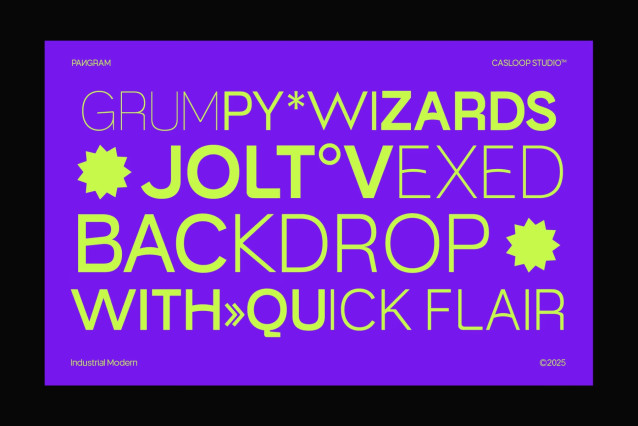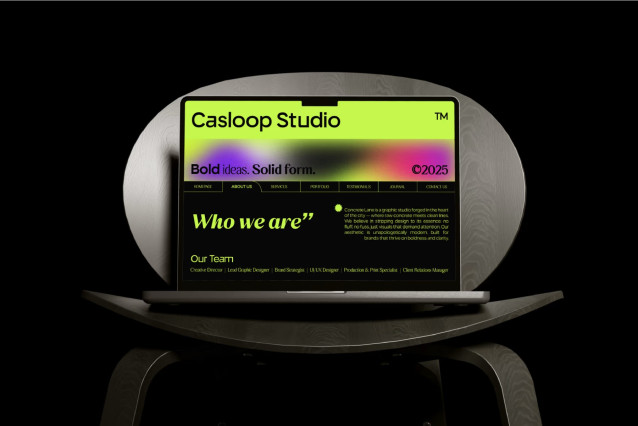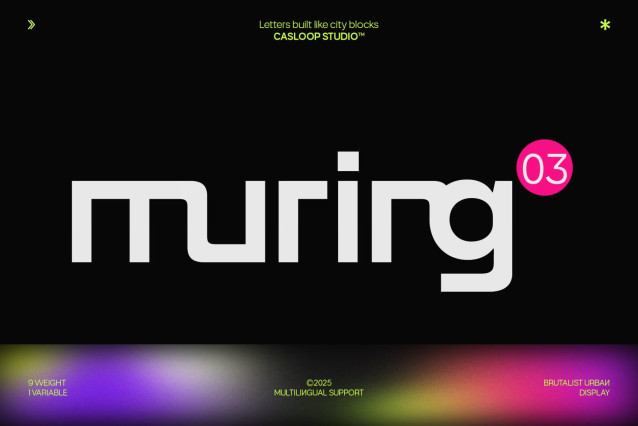
Muring 03 Font Family
Muring.03 is the most experimental member of the family — keeping brutalist roots but adding expressive alternates and striking character details. Letters like R, A, and T introduce unique tension and flair, making this version ideal for designers who want brutalism with an artistic twist.
Its design invites play: from editorial posters to kinetic typography, Muring.03 thrives in bold, experimental contexts. Built in 9 weights (Thin to Black) it transitions smoothly across mediums, giving endless room for creative exploration. This typeface is brutalism reimagined — raw, modern, but never afraid to show personality.